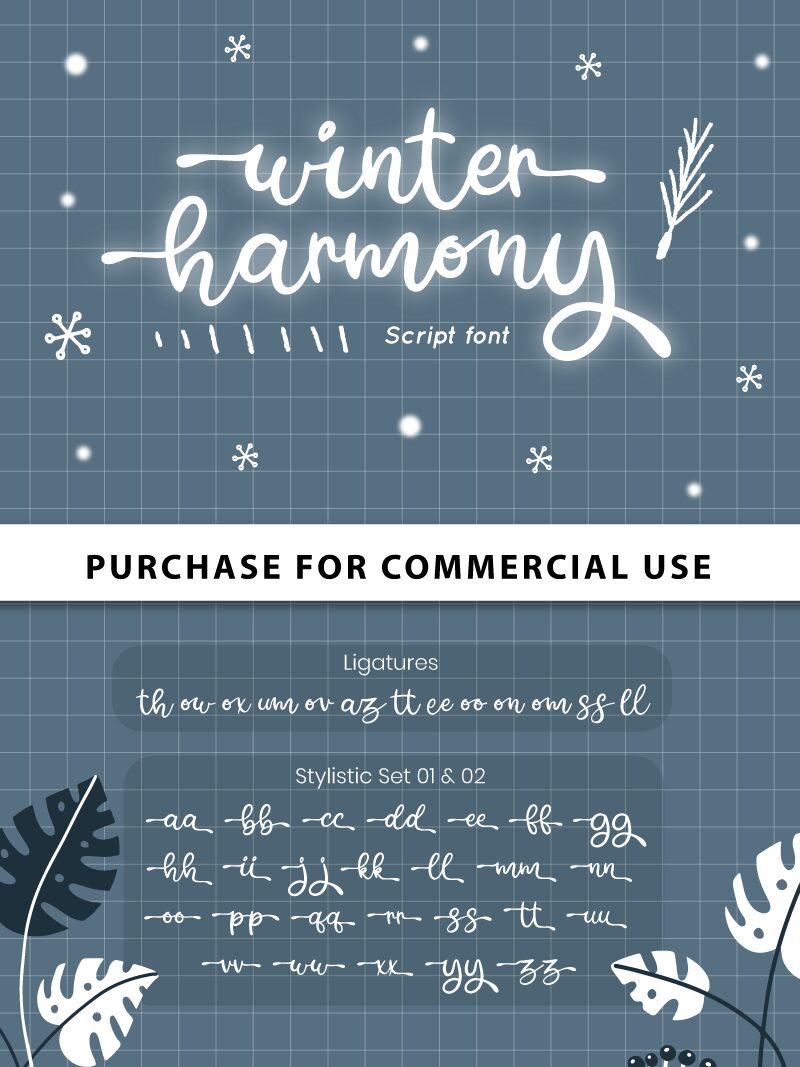
Winter Harmony Regular
Winter Harmony by Attype Studio is a charming handwritten font that will add a cozy touch to any project. Its semi-light weight makes it perfect for delicate designs, while its unique style adds a personal touch to any message. This font is suitable for various projects, such as heartfelt invitations, warm greeting cards, elegant logos, and even social media posts that need a bit of warmth and personality. Winter Harmony's playful yet sophisticated vibe will bring an enchanting winter wonderland to your creations. Let this font be your perfect companion for any project that needs a touch of magic!